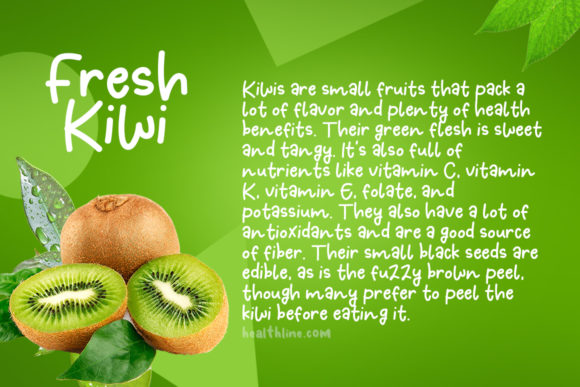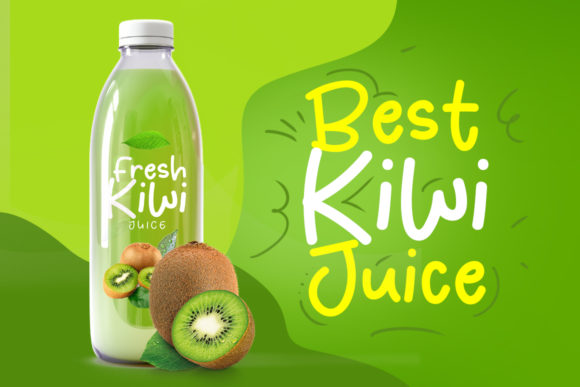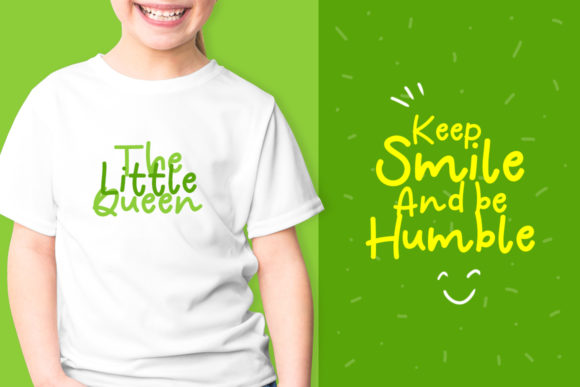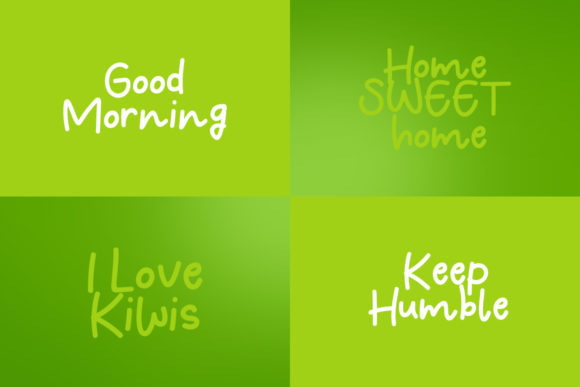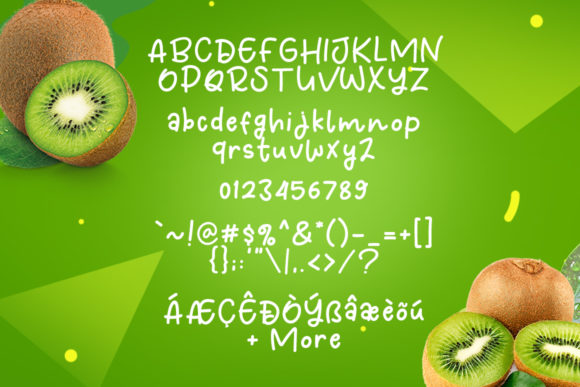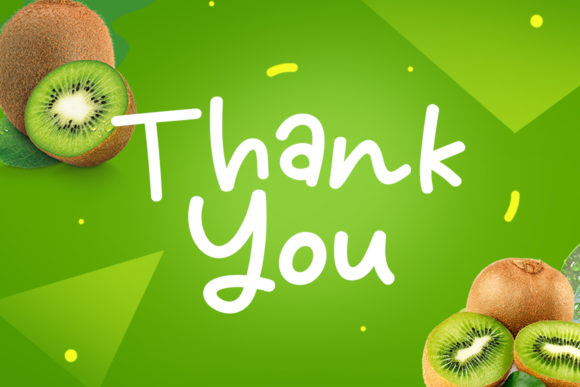
Introduction to Fresh Kiwi Font Font
Fonts play a crucial role in design, and the Fresh Kiwi Font font is a typeface that brings both character and versatility to any project. Whether you’re working on a branding project, a website, or a print design, the Fresh Kiwi Font font offers a unique style that can elevate your work.
| 📌 Font Name | Fresh Kiwi Font |
| 👤 Author | Khurasan |
Fresh Kiwi is a fun display font with a lovely style.
Its unique style is perfect for any creative design .
Key Features of Fresh Kiwi Font Font
Why Choose Fresh Kiwi Font Font?
The Fresh Kiwi Font font is more than just a typeface – it’s a design tool that helps you communicate your message with style and clarity. Its unique character set and versatile design make it suitable for a wide range of applications, from elegant invitations to bold headlines.
With its carefully crafted letterforms and balanced proportions, the Fresh Kiwi Font font ensures readability and visual appeal across all mediums.
What makes Fresh Kiwi Font font special?
The Fresh Kiwi Font font stands out with its unique design, exceptional readability, and versatility across various design applications.